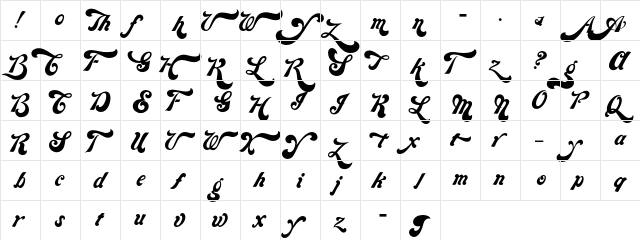
Jezebel Bonus Regular
Design Context for Jezebel Bonus Typeface
Jezebel Bonus is a composed and adaptable typeface that performs quietly and consistently across a wide range of design contexts.